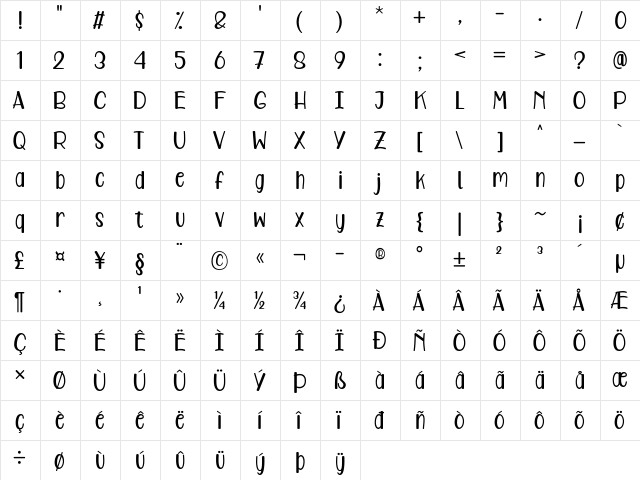
Care Around Regular
| Foundry | 7NTypes |
| Designer | Dani; Situjuh Nazara |
Design Context for Care Around Typeface
Care Around uses gentle rounded endings to create a warm, inviting typographic personality — less corporate than geometric sans, more refined than playful display fonts.
A natural fit for tech startups, health and wellness brands, children's products, and friendly consumer apps.
Font Pairing: Pairs well with a rounded or humanist sans for body copy, maintaining the friendly tone without relying on Care Around to carry extended reading.
Pro Tip: Pair Care Around with a geometric sans for a balanced system — the rounded softness works as a warm counterpoint to harder-edged companions.